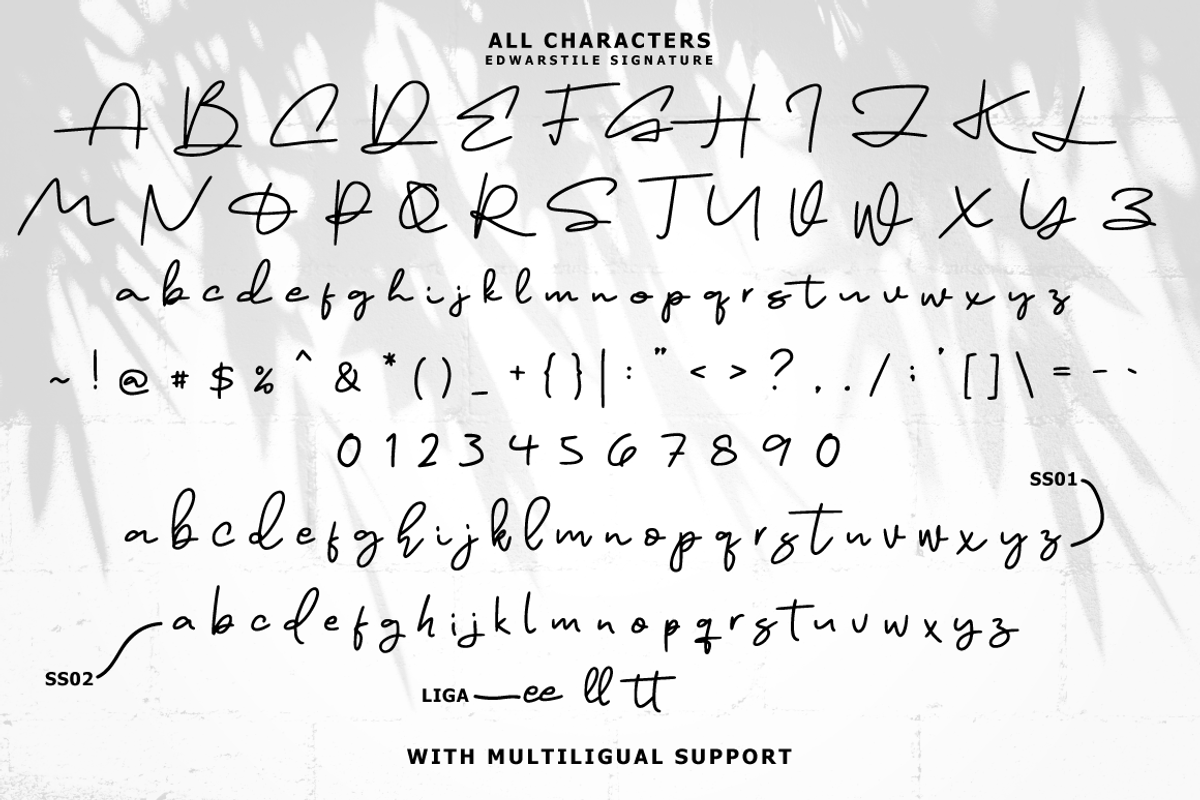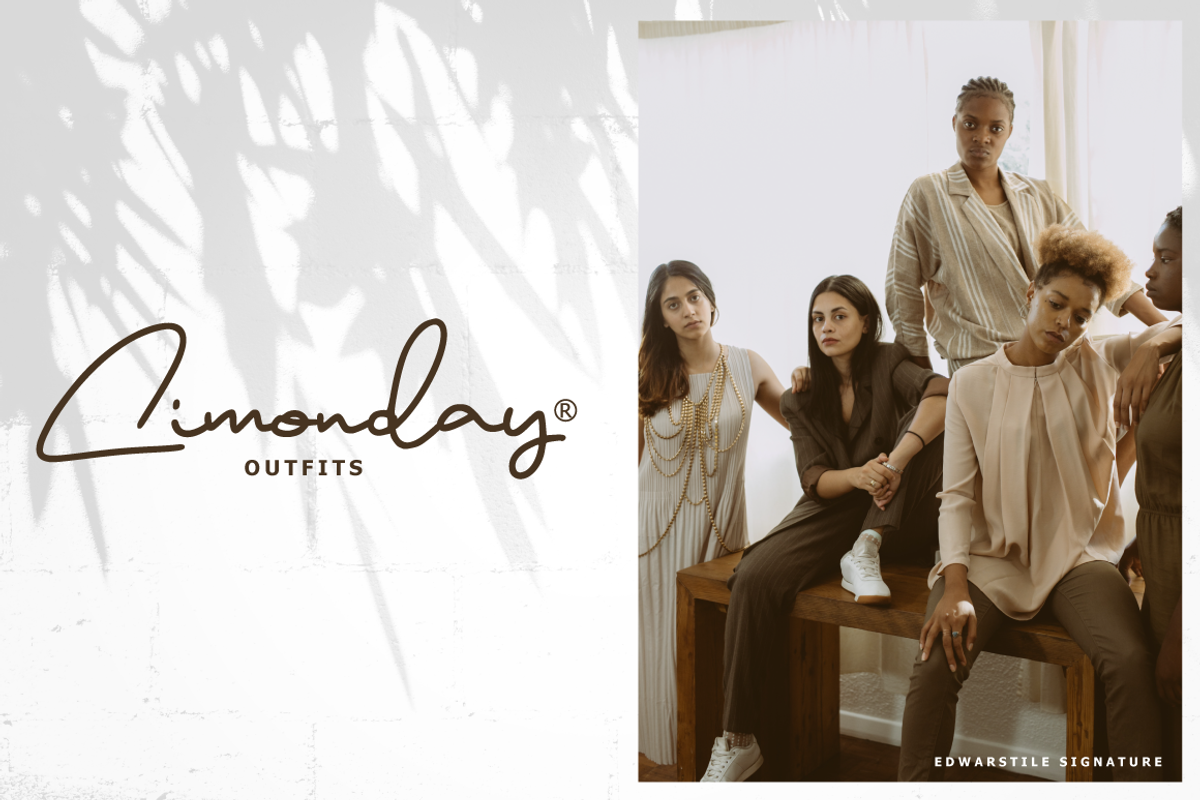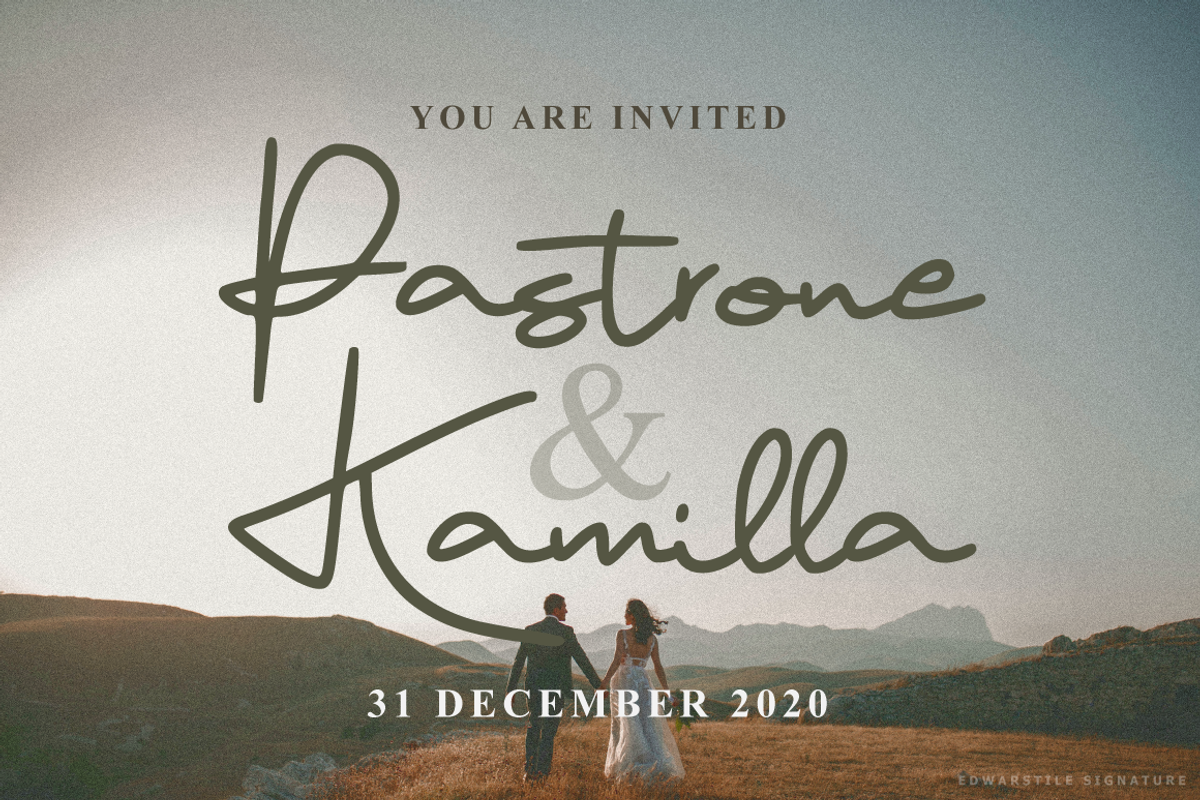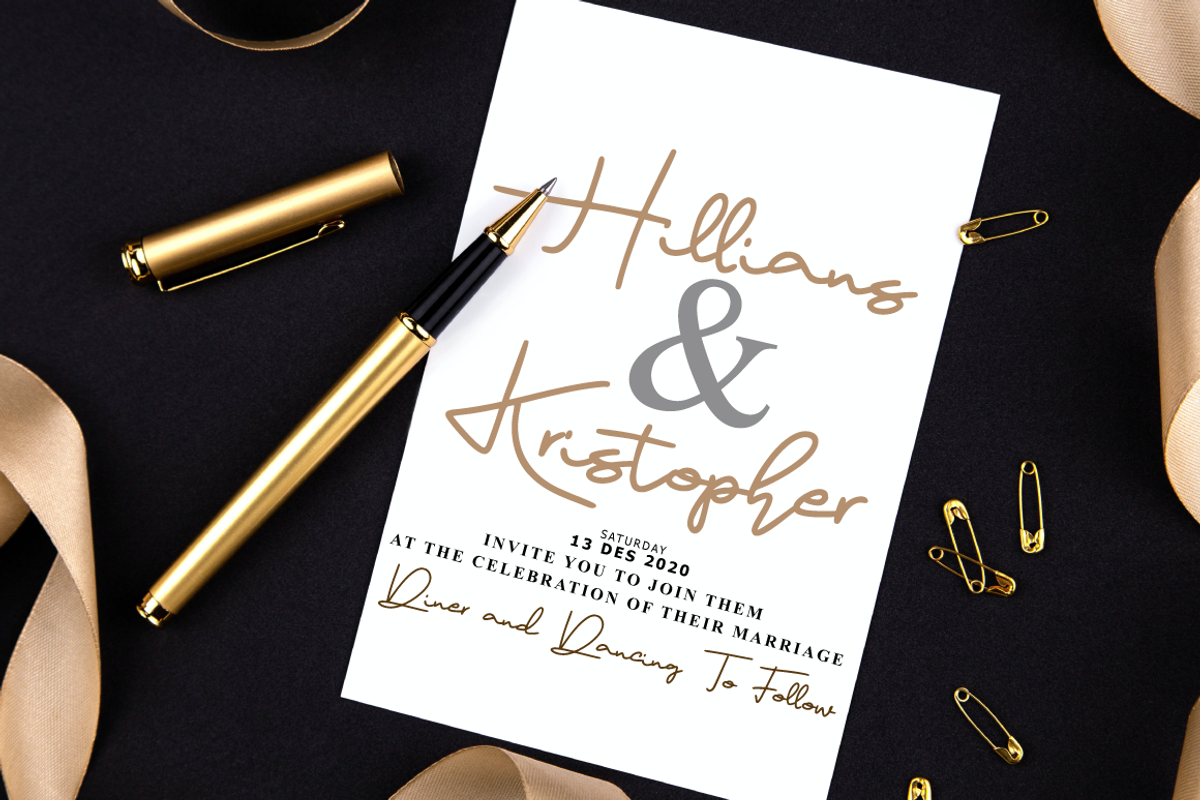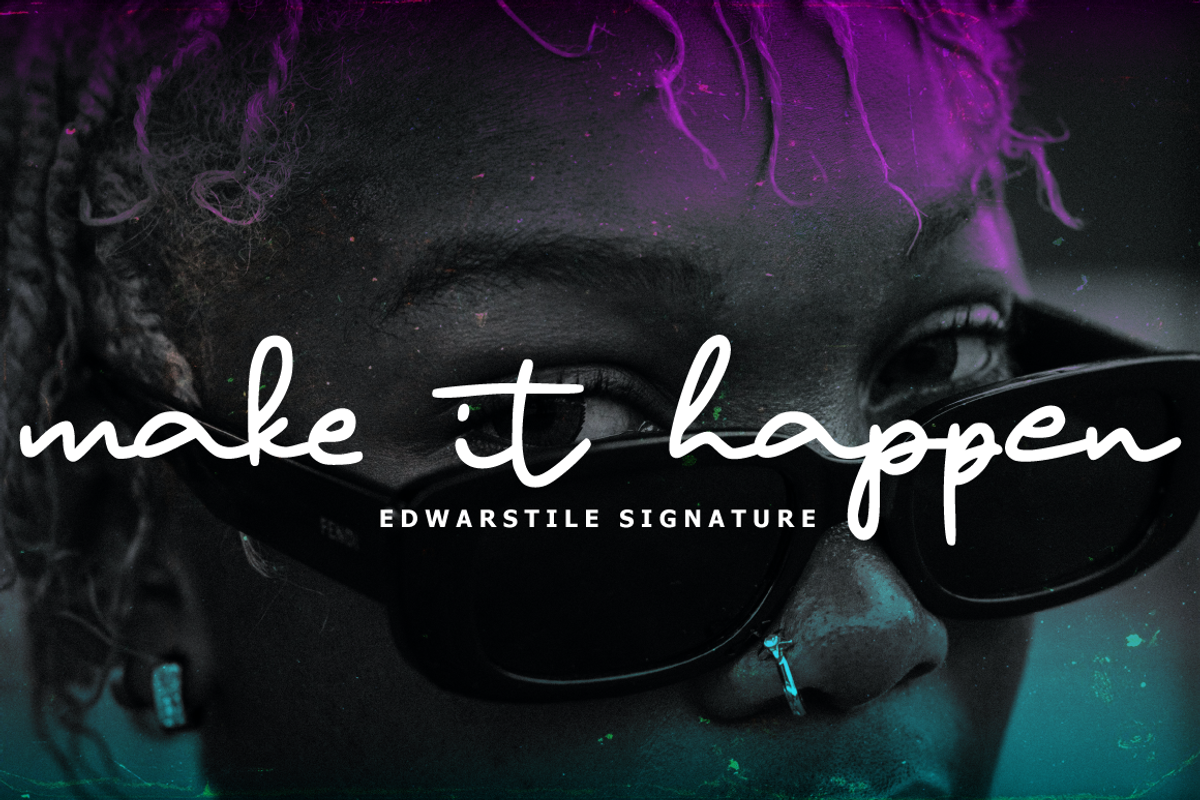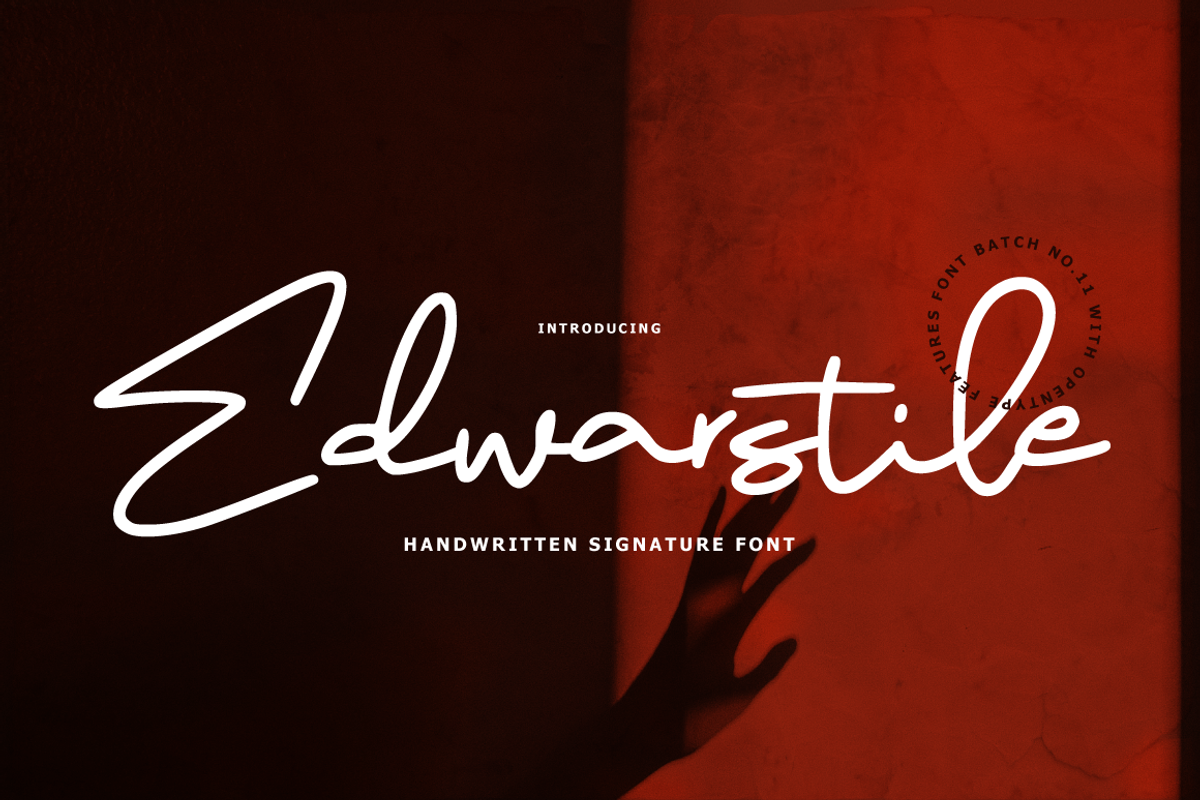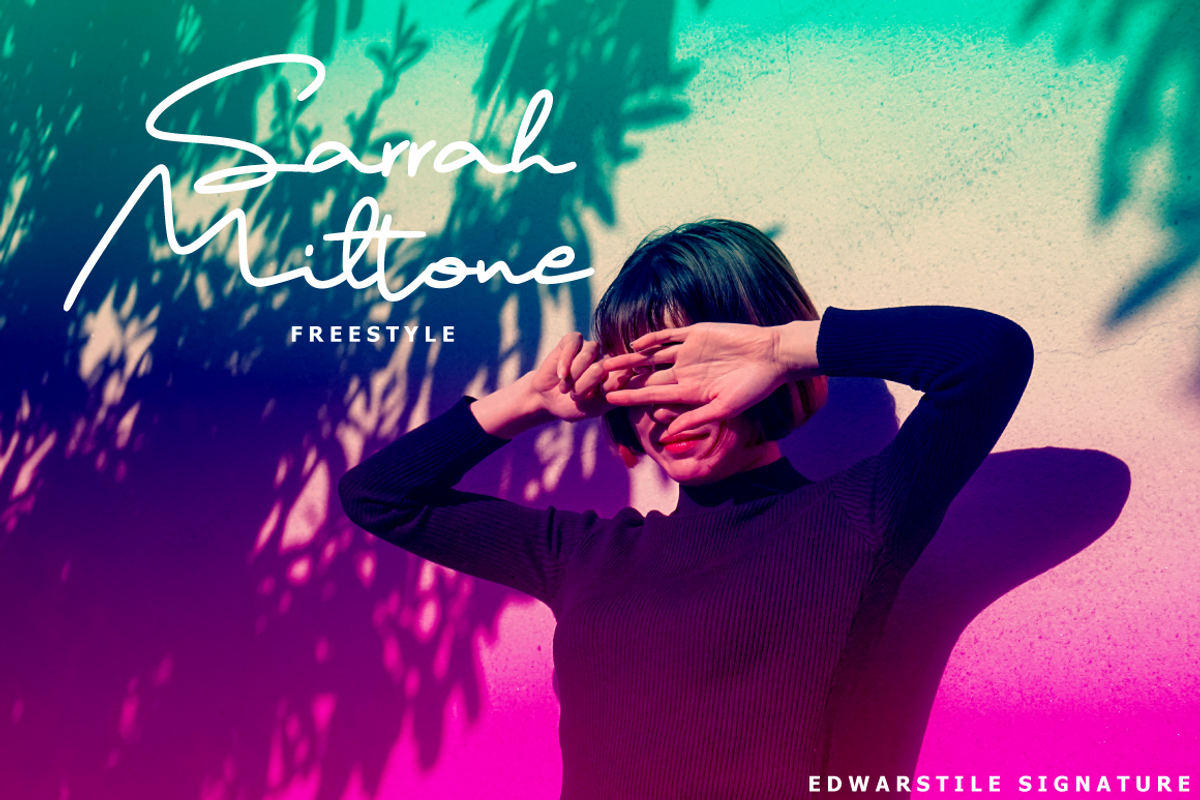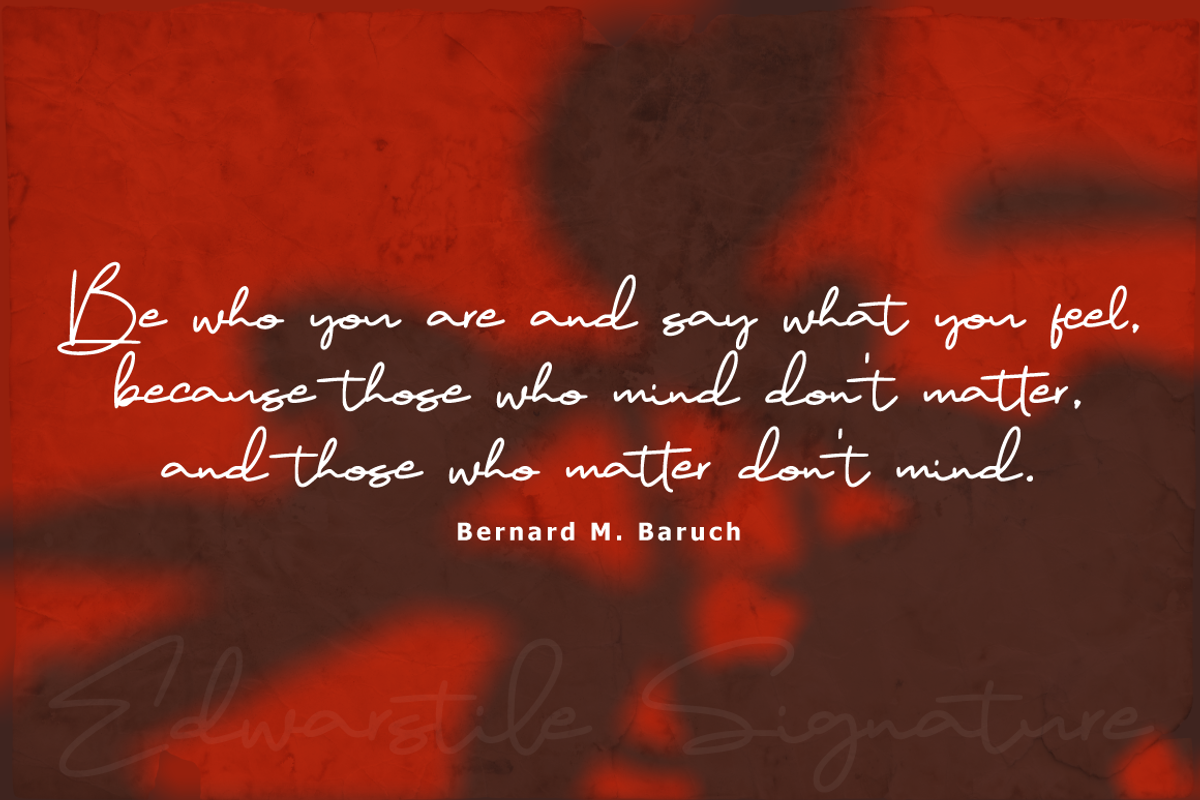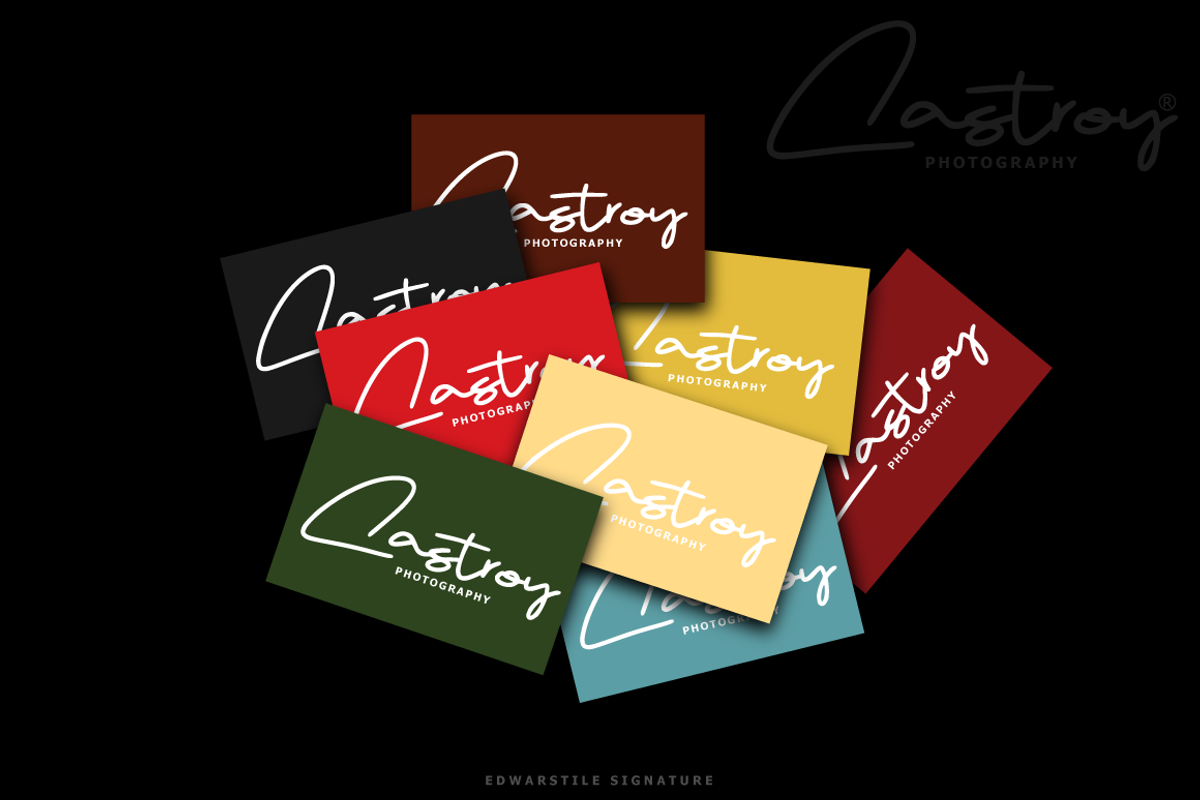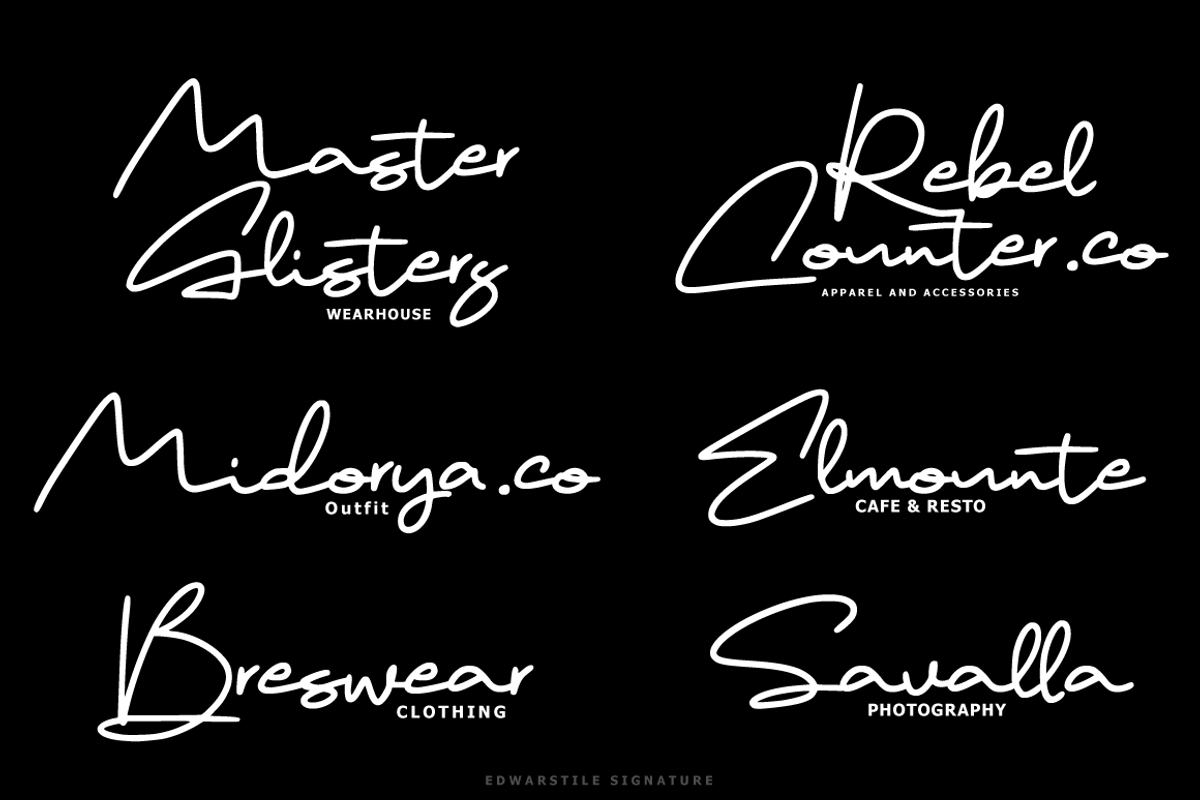
Edwarstile - Monoline Signature
Edwarstile Signature with a handmade calligraphy style, decorative characters and a dancing baseline! So beautiful on invitation like greeting cards, branding materials, business cards, quotes, posters, and more!!
Edwarstile Signature come with 200+ glyphs. The alternative characters were divided into several Open Type features such as Swash, Stylistic Sets, Stylistic Alternates, and Ligature. The Open Type features can be accessed by using Open Type savvy programs such as Adobe Illustrator, Adobe InDesign, Adobe Photoshop Corel Draw X version, And Microsoft Word. And this Font has given PUA unicode (specially coded fonts). so that all the alternate characters can easily be accessed in full by a craftsman or designer.
Edwarstile Signature Features :
Uppercase & Lowercase International Languange & Symbols Support Punctuation & Number PUA Unicode Range Standard Ligatures Discretionary Ligatures Stylistic Alternates Stylistic Set 01-07: